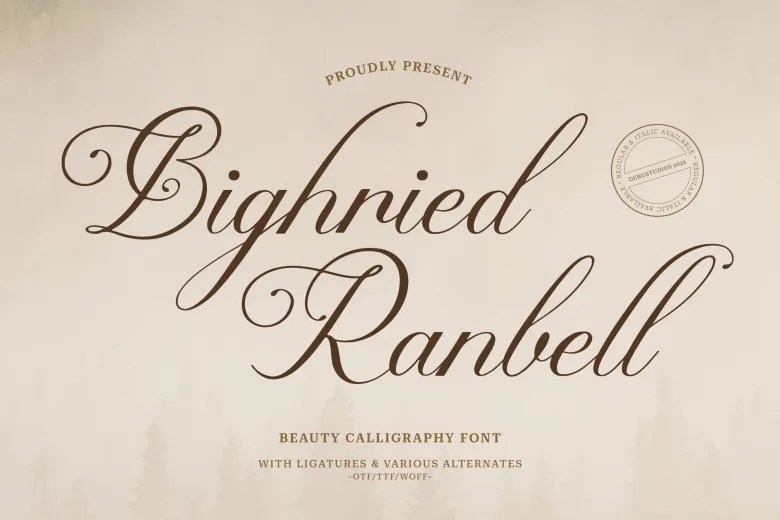
Bighried Ranbell Font
Bighried Ranbell is a premium script typeface designed to elevate a wide range of projects with its elegant and versatile style. Ideal for logos, branding, and homeware designs, this font adds a touch of sophistication to product packaging, mugs, posters, and shopping bags. Its refined script is also perfect for creating stunning book covers, T-shirts, invitation cards, and greeting cards.
Bighried Ranbell enhances various design elements with its graceful curves and stylish flair, making it suitable for labels, photographs, watermarks, and special occasions. Whether you’re working on personal projects or professional designs, this font brings a unique and elegant touch to every application.